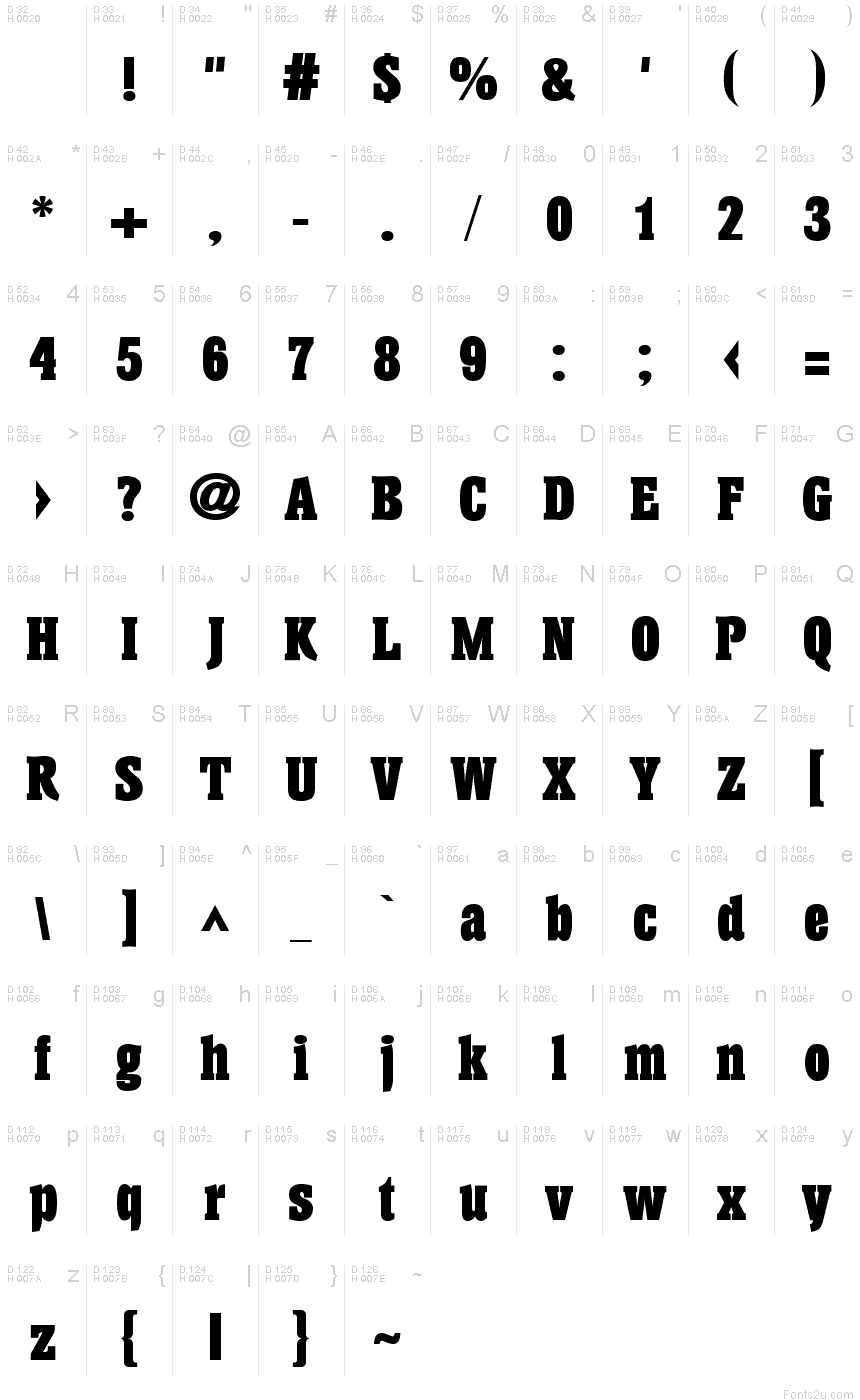
Hansen
Hansen by Typographer Mediengestaltung is a free heavy slab serif display font with the blunt impact of vintage wood type. Block serifs meet tight joins and irregular curves.
Vintage poster work remains the font's most natural territory. The same forceful shapes suit music merchandise, brewery packaging, and event signage with an old print-shop flavor. It is most convincing as a compact headline that needs to hit hard at first glance.